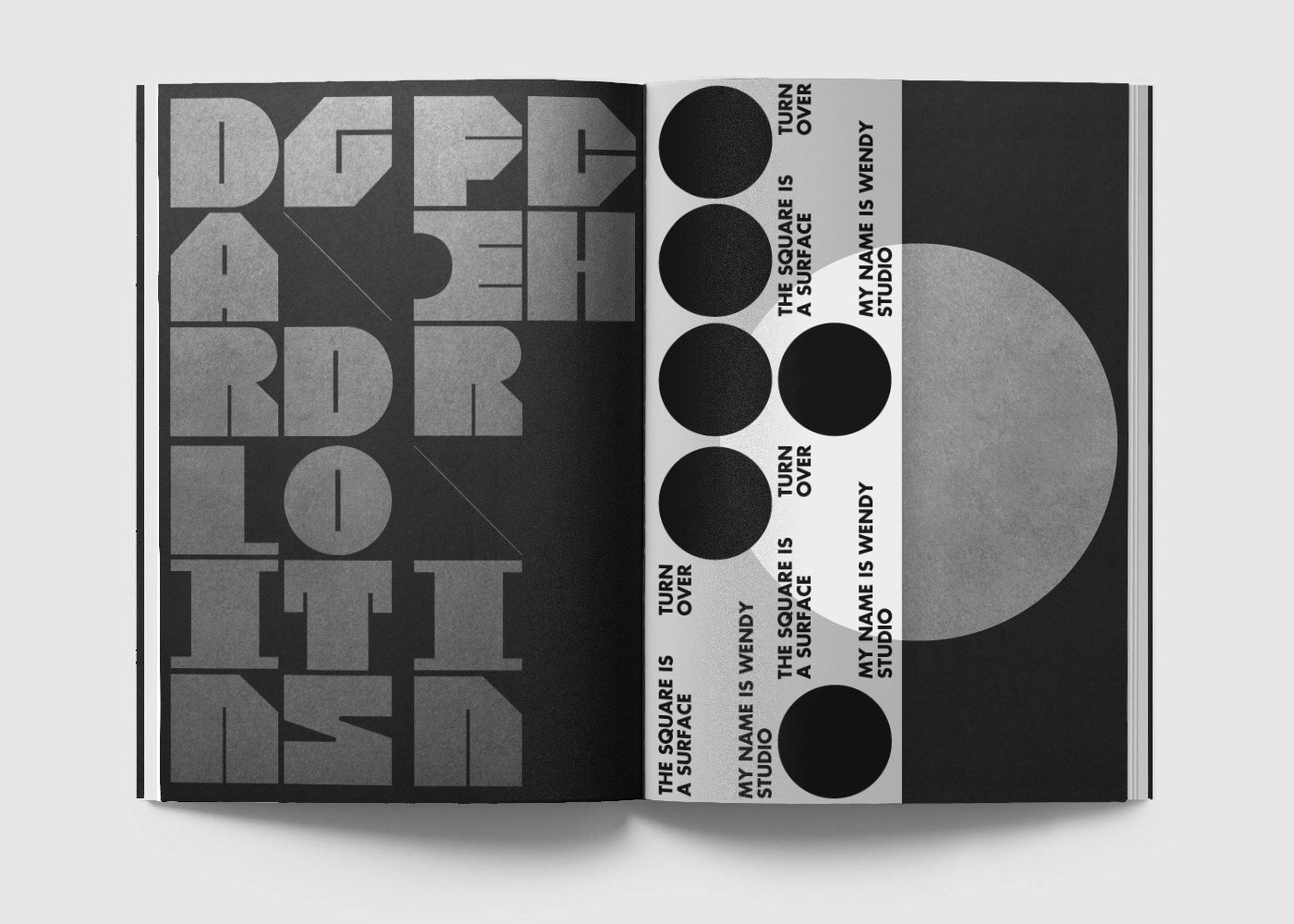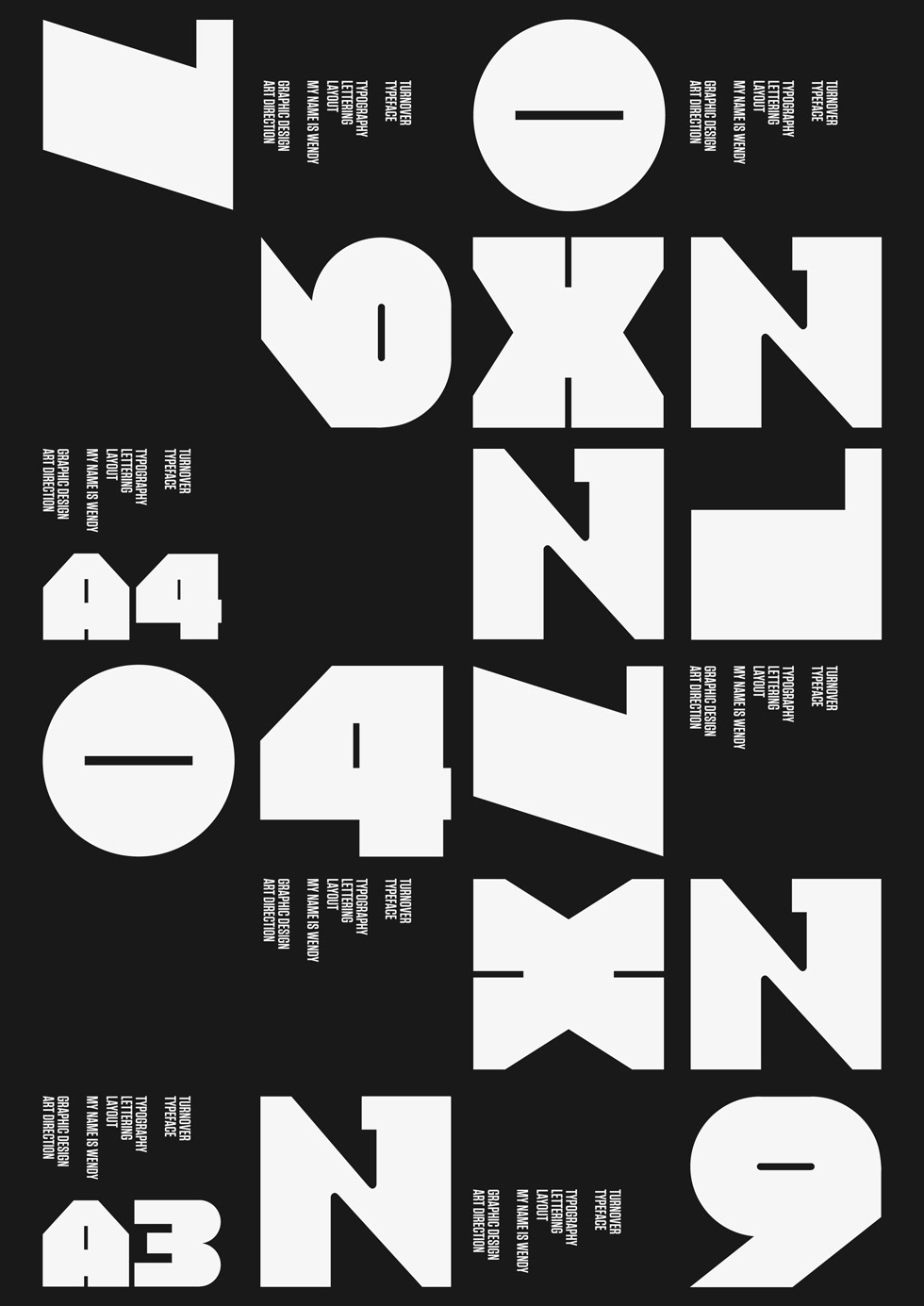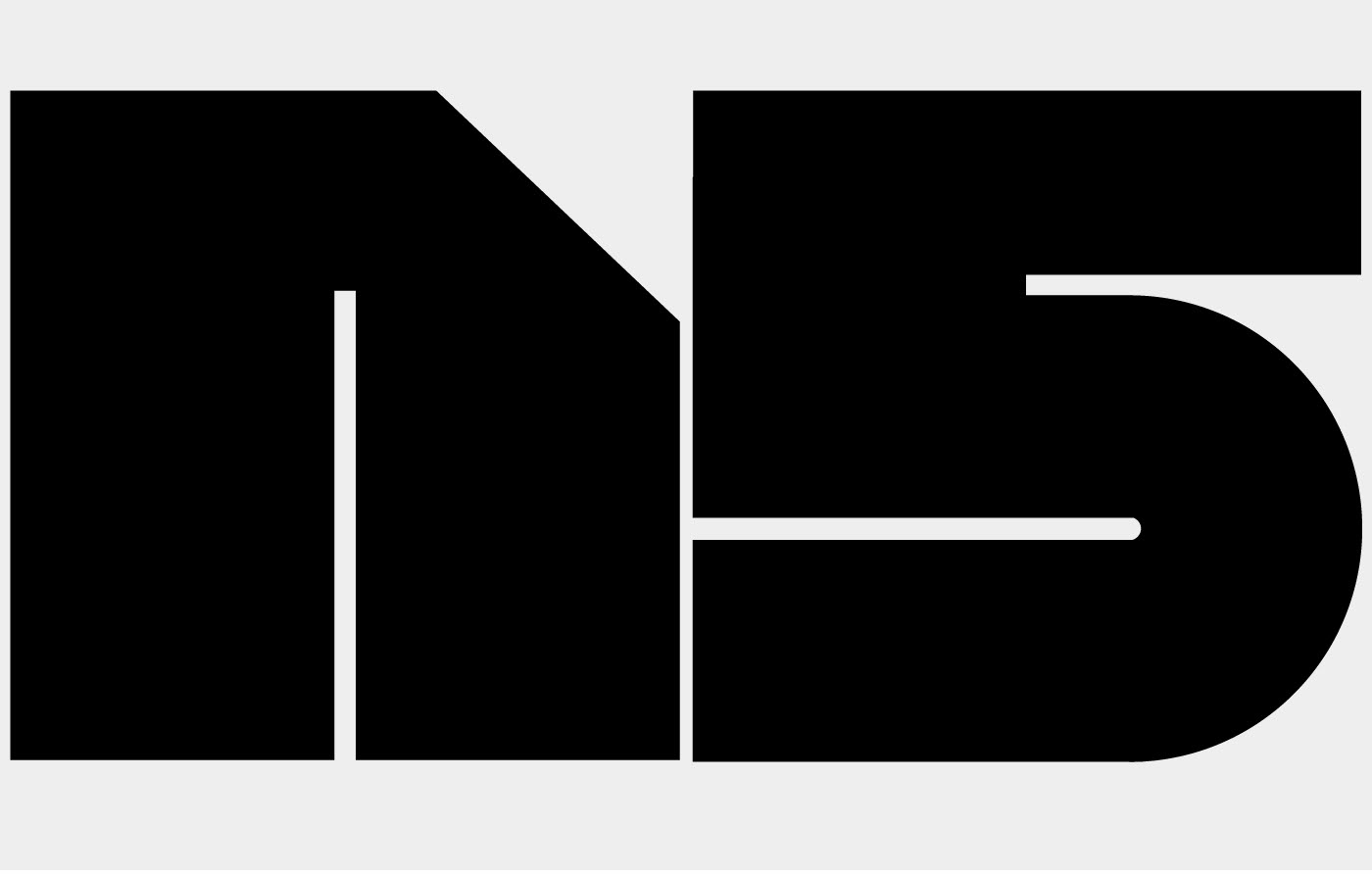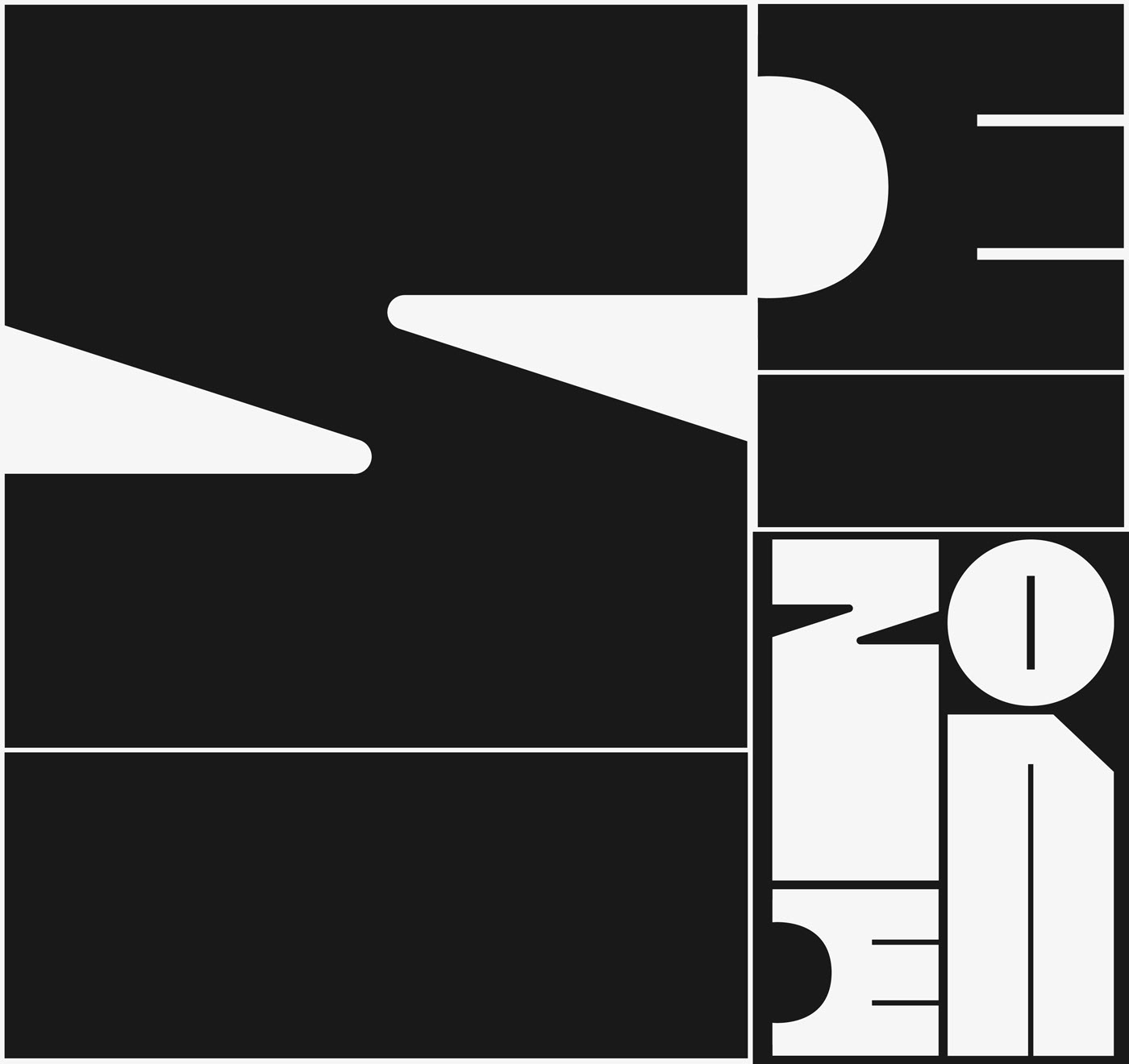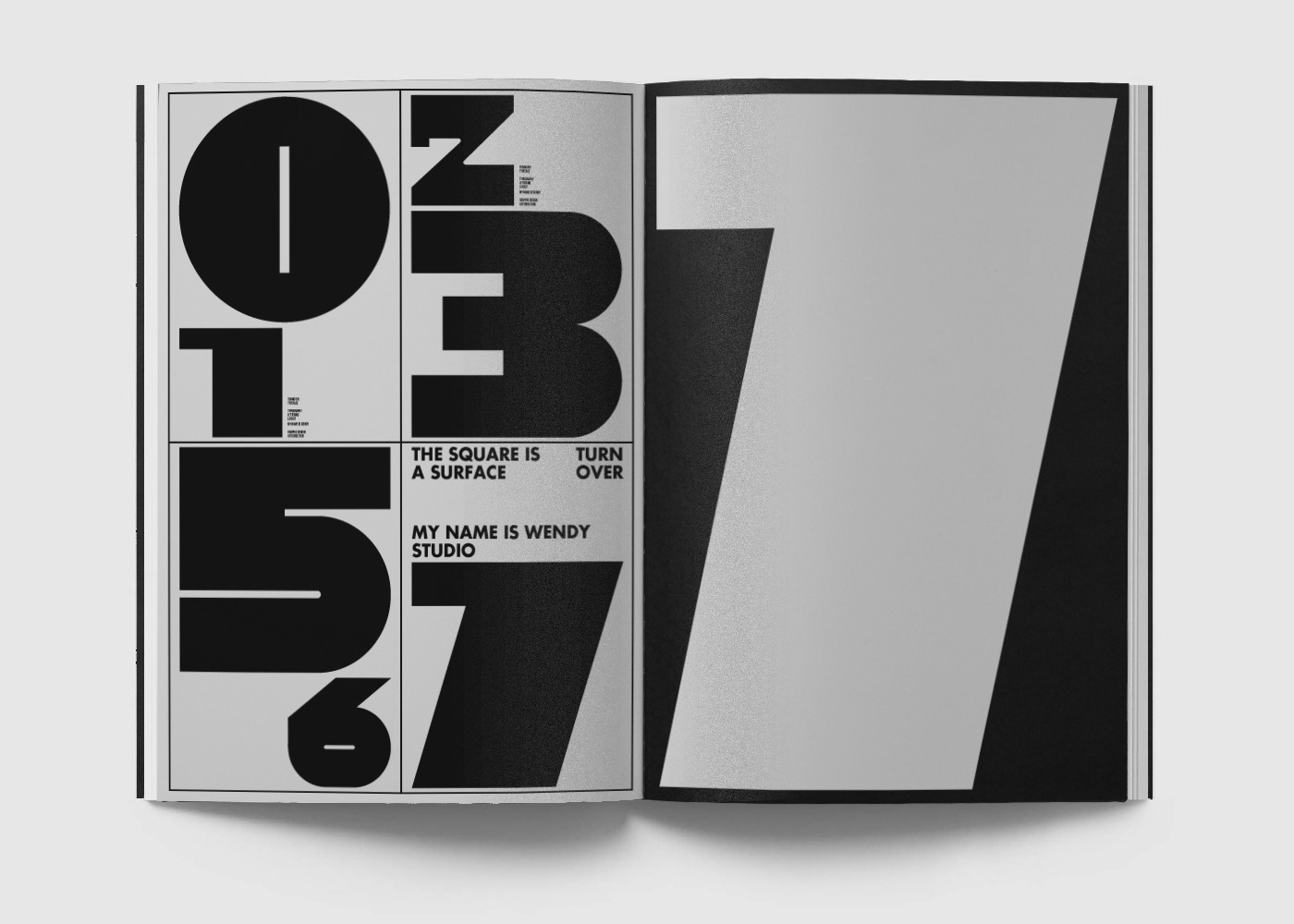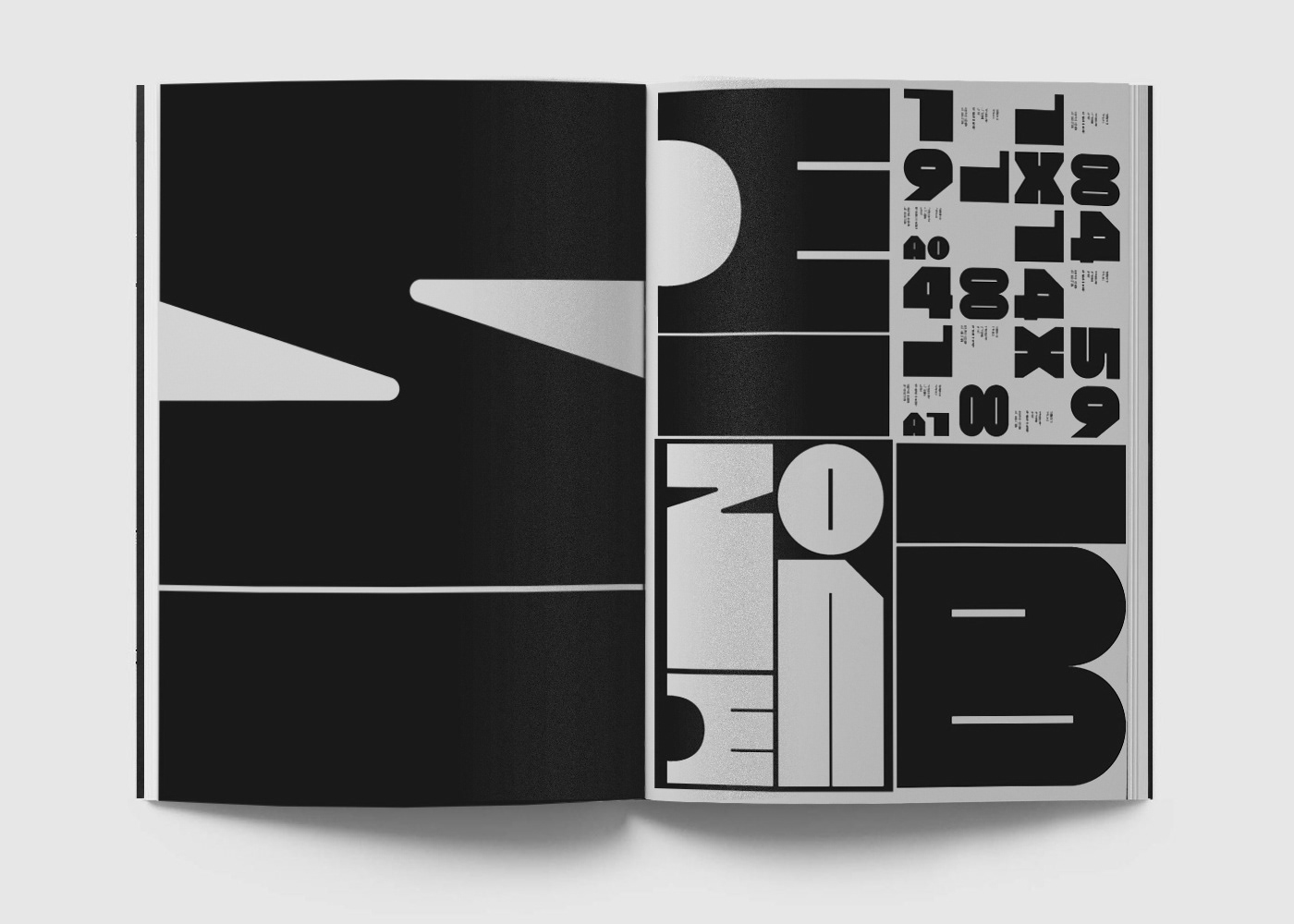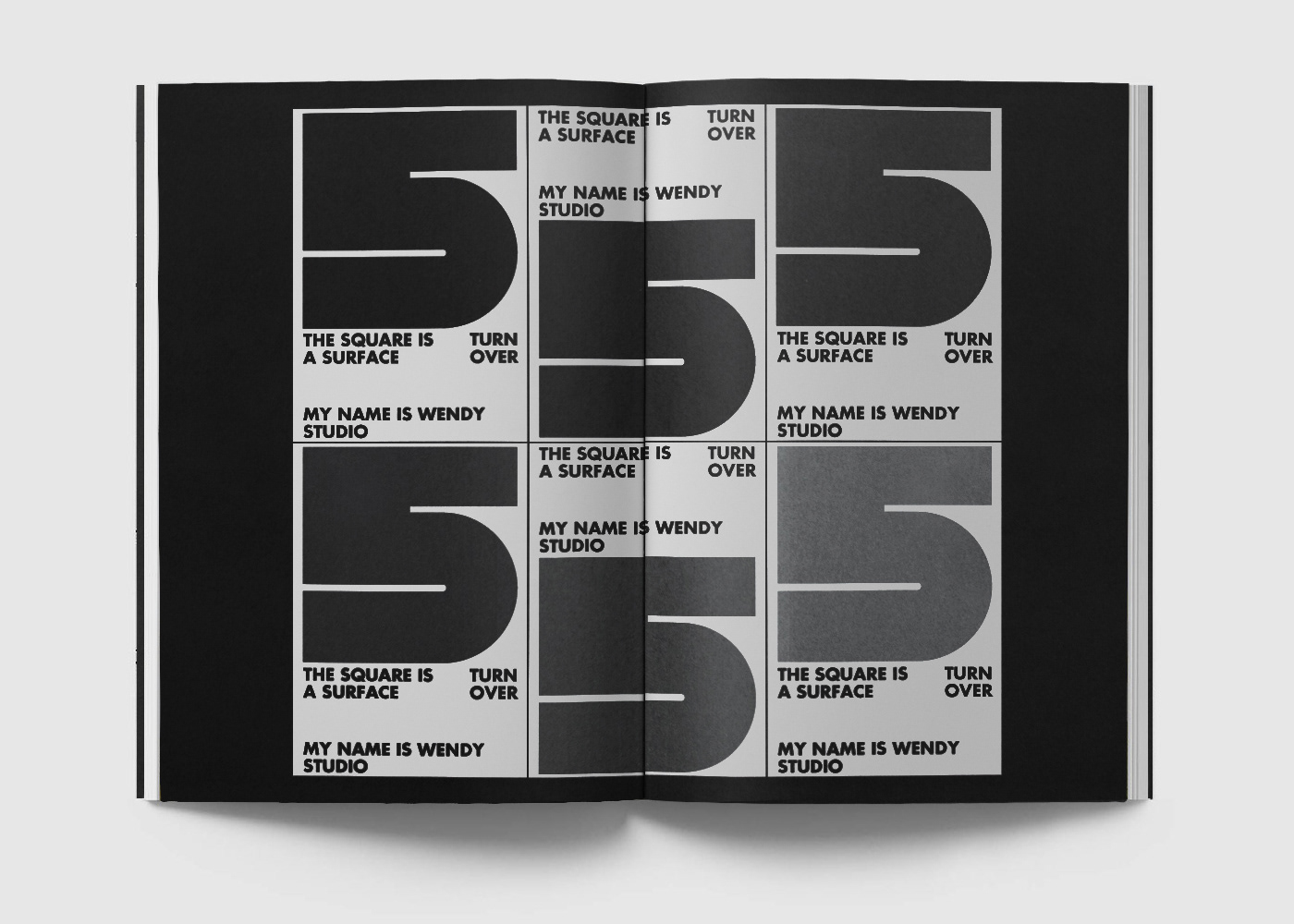
Turnover is both a typography and a series of shapes and signs.
Constructed on the basis of square, Turnover is a fixed width type.
Its creation enhances the balance between the surface and black and white.
its grid-based construction allows the creation of varied and strong layouts.